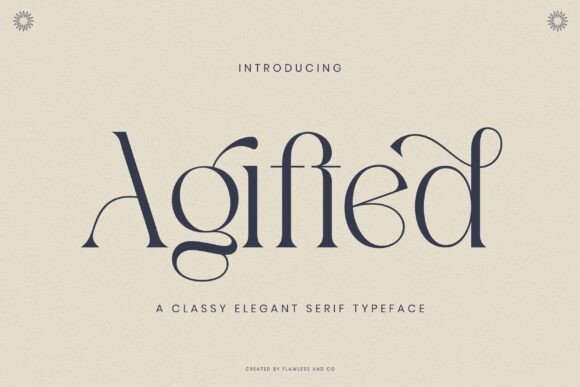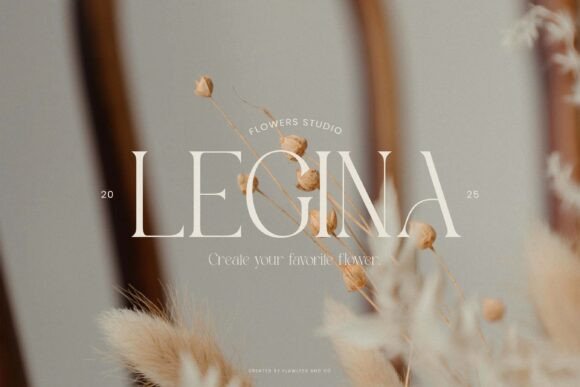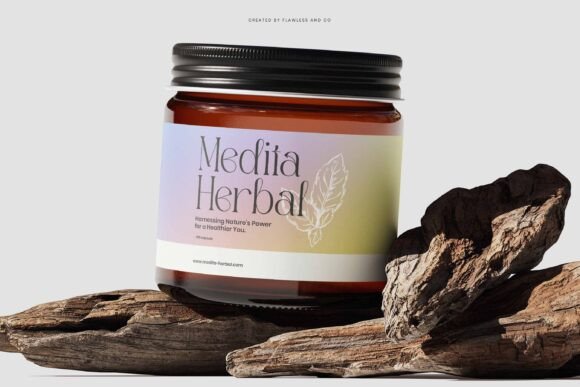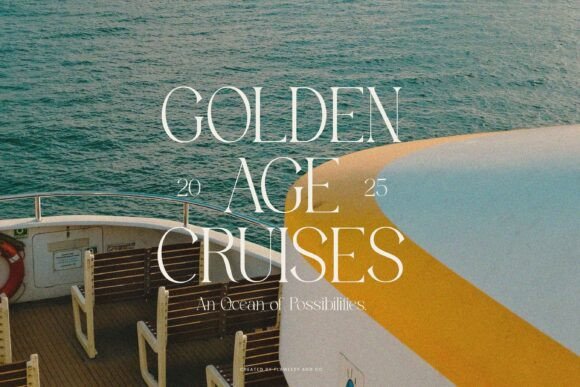
Agifted Font: Elegant Serif for Wedding Invitations & Luxury Branding
About the Agifted Font
Unleash your creativity with Agifted Font, a versatile font perfect for a wide range of applications. Agifted is a classy and elegant serif font that brings a sophisticated charm to any design. With graceful curves and timeless letterforms, this font is perfect for high-end branding, editorial layouts, wedding invitations, fashion magazines, and luxury packaging. Its sophisticated aesthetic makes it ideal for projects that require a luxurious and sophisticated look. Let Agifted elevate your typography with elegance and style.
Agifted excels in headlines, logos, and short-form text where its elegance shines. It’s also a strong choice for packaging design, particularly for luxury goods. However, its refined forms are less suitable for body text or UI elements; the delicate serifs can become visually cluttered at smaller sizes.
For optimal pairings, consider contrasting Agifted with a clean sans-serif like Montserrat for a modern feel, or a playful script font such as Great Vibes for a more whimsical effect. A geometric sans-serif like Futura would create a sophisticated and balanced pairing, emphasizing Agifted’s classic elegance.
Agifted projects an air of sophisticated elegance and understated luxury. Brands seeking to convey premium quality, timeless style, or a heritage aesthetic will find it particularly effective.
Agifted Font Usage Examples
Agifted Font Example